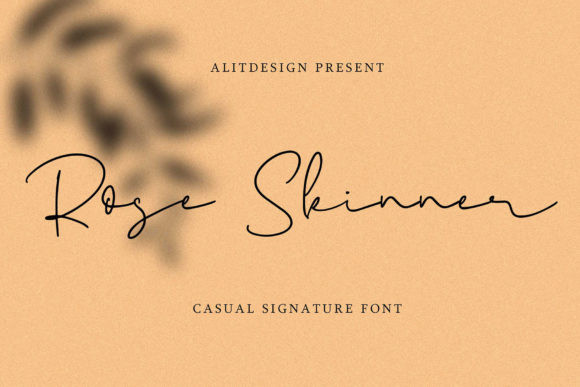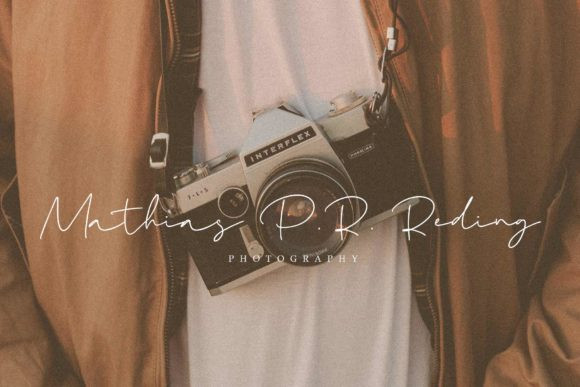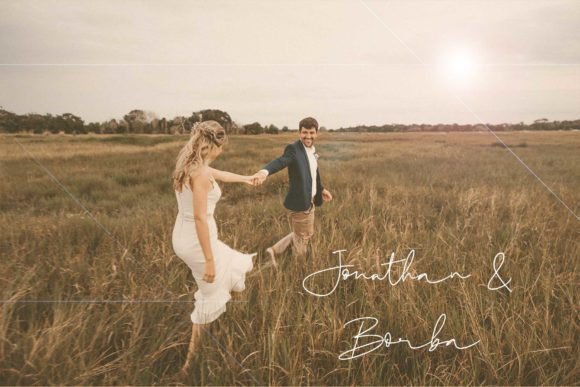
Rose Skinner Font
Rose Skinner is a script font that is inspired by the natural flow of a signature. Add a personal touch to your next design or craft with the romantic font.